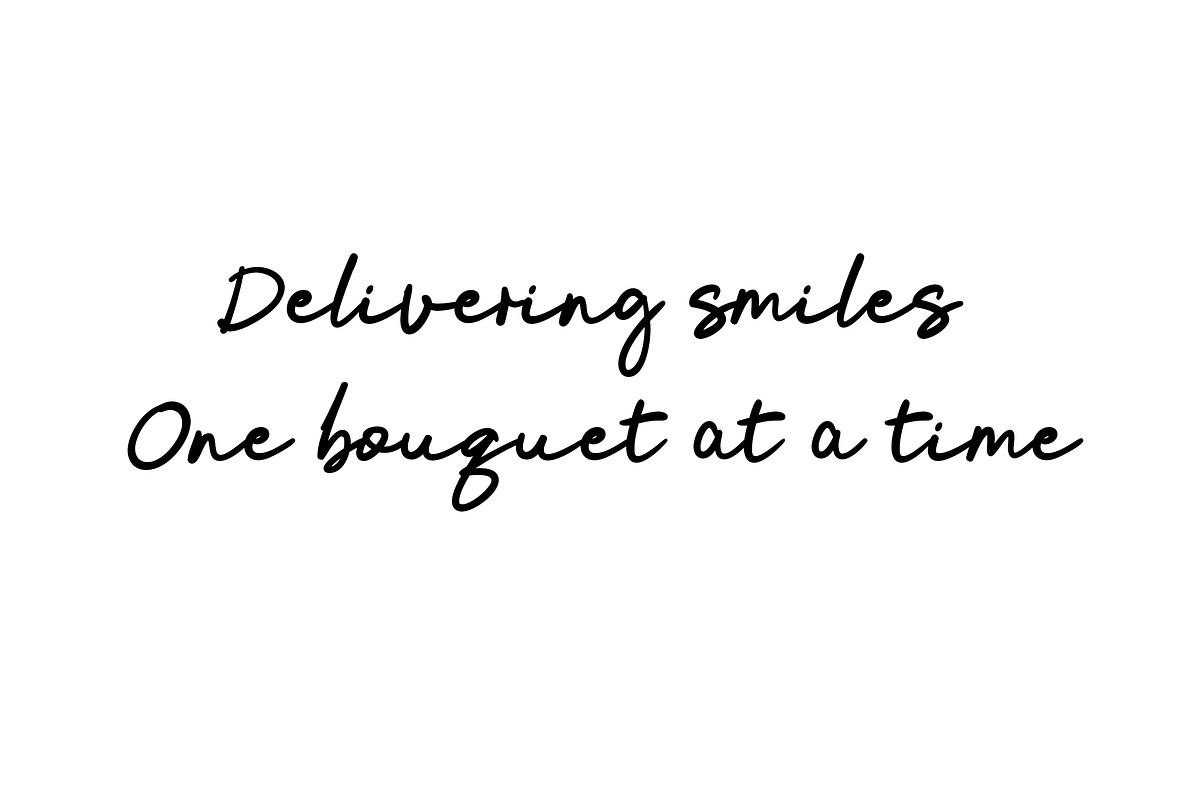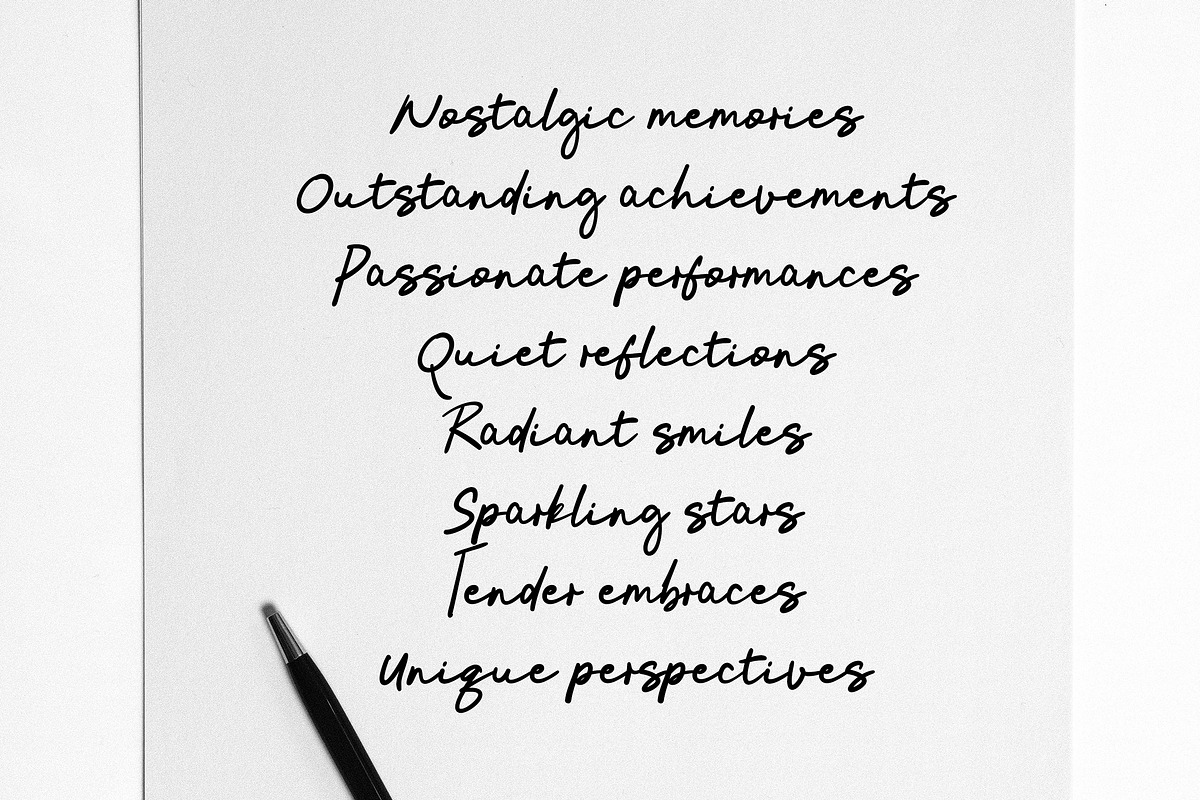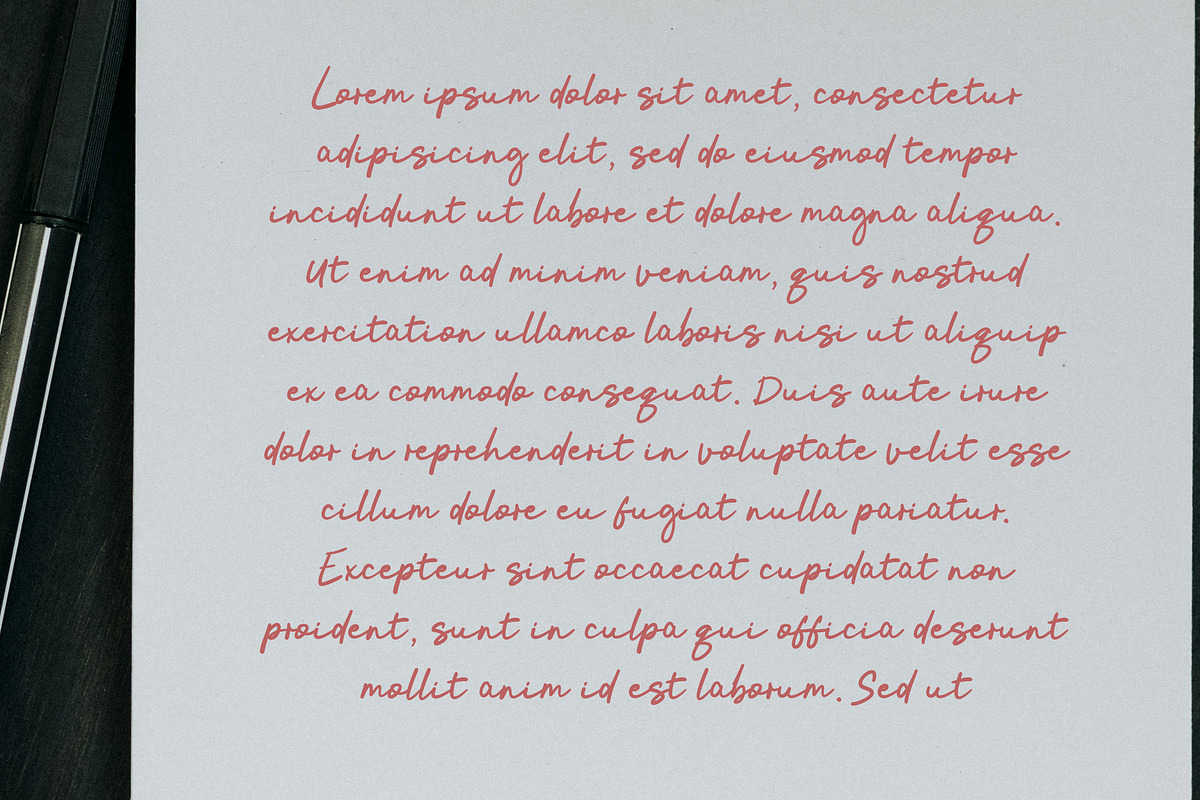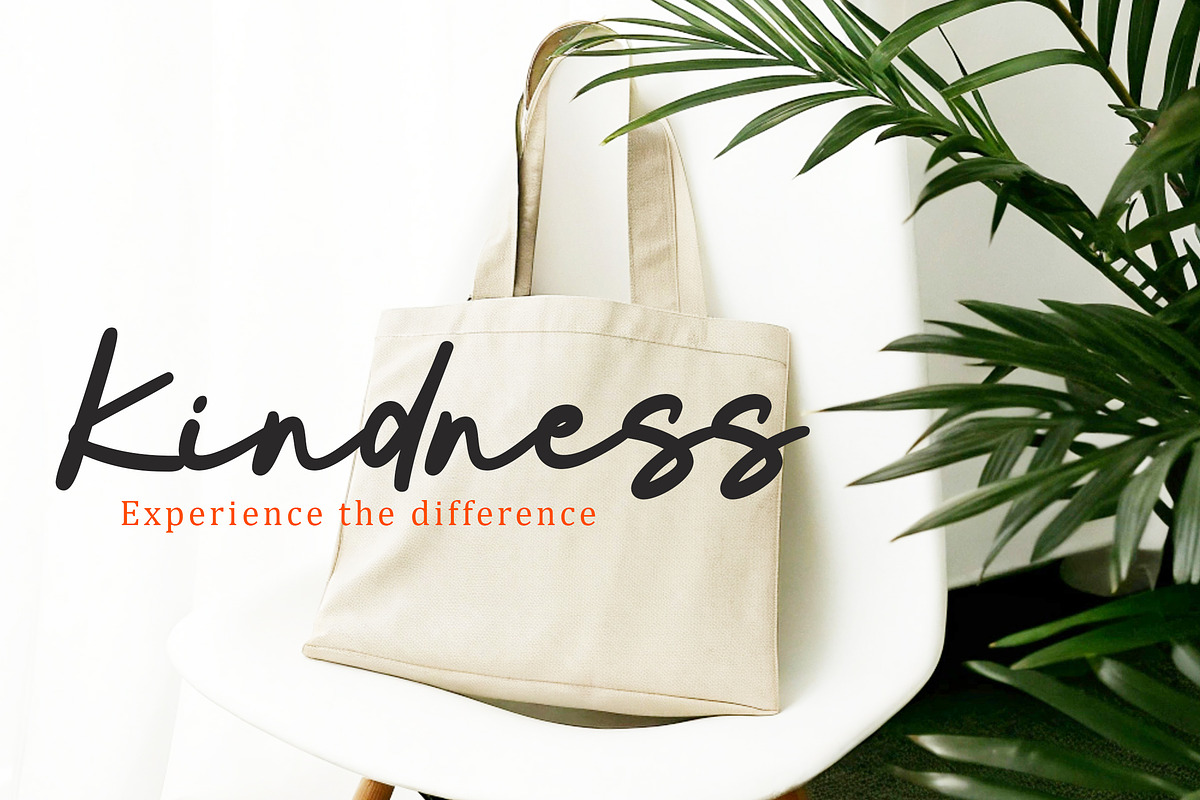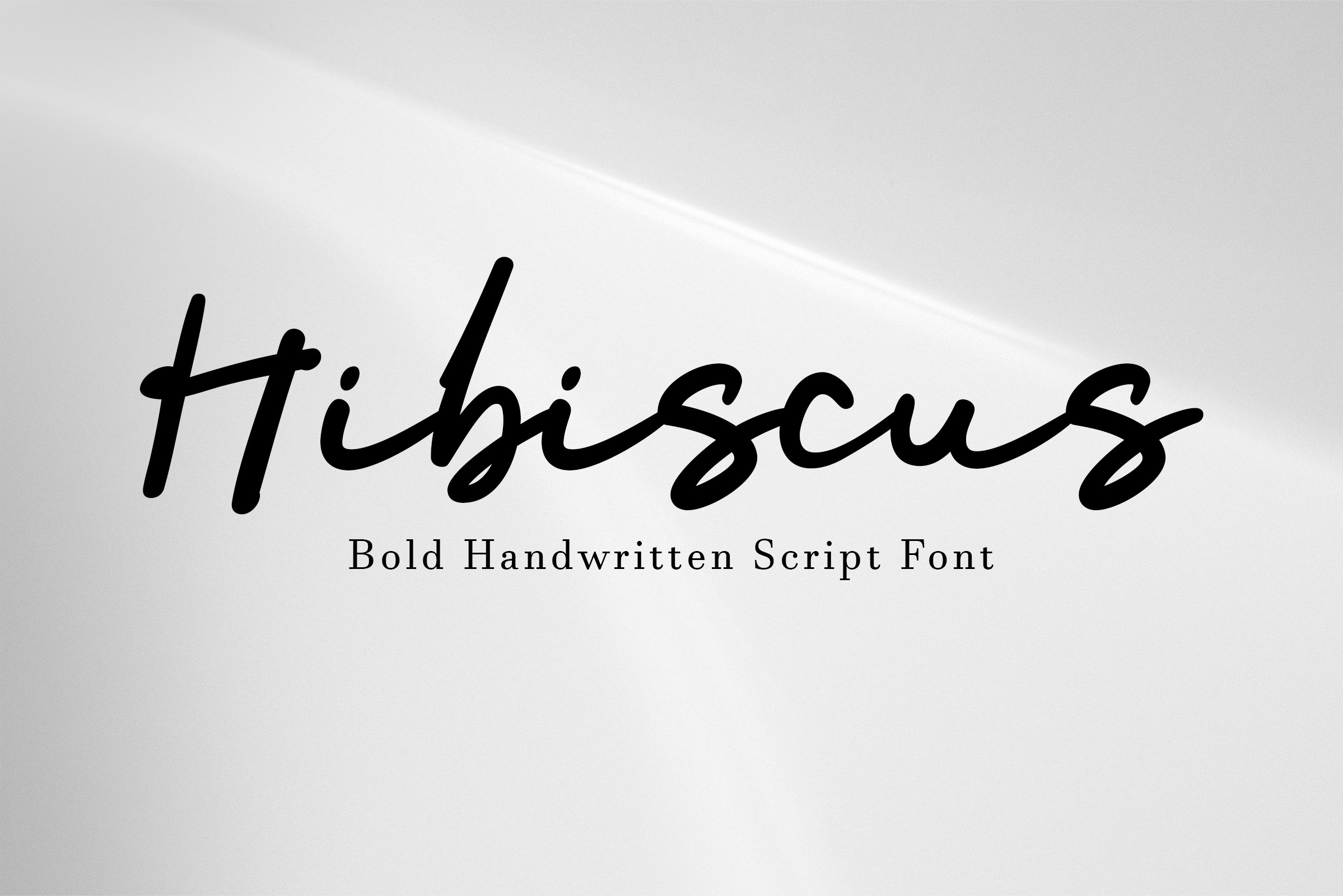
Hibiscus - Bold script font
Hibiscus a handwritten script font with a bold, gender-neutral vibe. This font will turn any creative idea into a true piece of art. (please type the preview to see if I have what you need!)